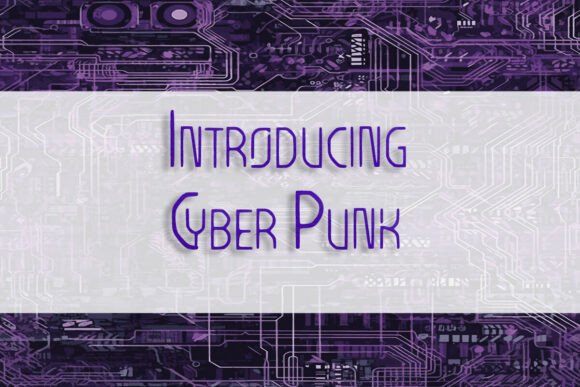
Introducing Cyber Punk – the ultimate font for stylistic creativity.
Excellently suitable for your shirt design, adorning your stickers, adding a unique touch to magazines, and ideal for constructing striking SVG files The Cyber Punk font breathes life into your greeting cards and Cricut projects with unrivalled elegance, while making a statement on your posters, social media posts, and beyond.
Cyber Punk Font offers exceptional quality and versatility, making it a valuable addition to your design toolkit. Whether you’re creating for personal projects or commercial use, Cyber Punk Font delivers professional results.